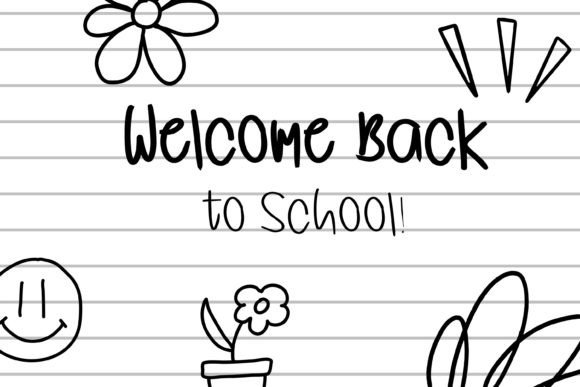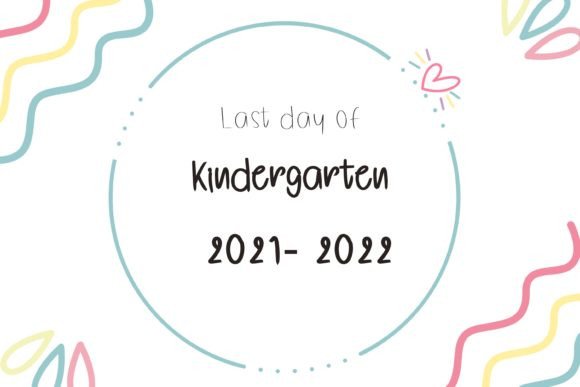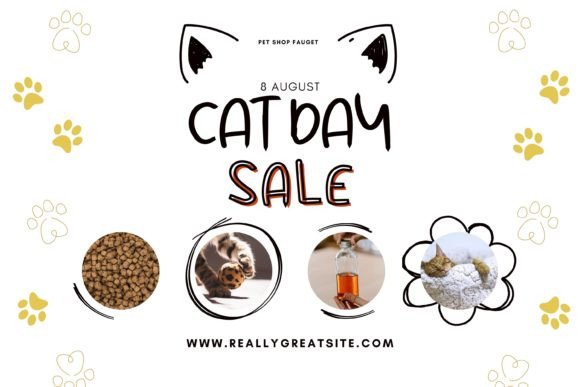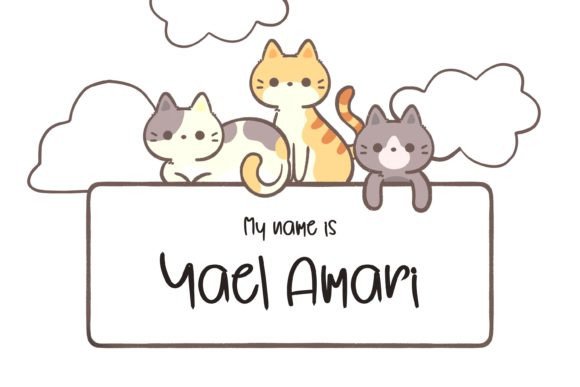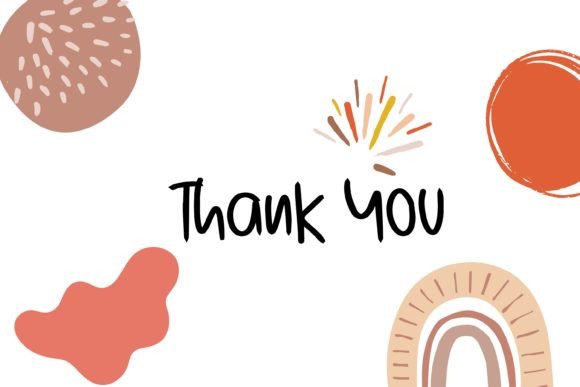
Introduction to Rawon Font
Do you remember the moment when you first saw a font that made you smile? For designers, finding the perfect font can be a game-changer. It’s that one element that can elevate a project from good to great. And that’s exactly what the Rawon Font does – it adds a touch of whimsy and playfulness to any creative project.
With its unique character shapes and high-quality design, the Rawon Font is a valuable resource for designers. Whether you’re working on a children’s book, packaging, or social media campaign, this font is sure to make your designs stand out. Plus, with a transparent background, it’s easy to integrate into any design. And the best part? It’s available for free download, making it a must-have for any design enthusiast.
Rawon Font
- High-quality font suitable for creative projects and designs with a unique, elegant style.
- Perfect for use in logos, branding materials, and other creative projects that require a touch of elegance and sophistication.
- Designed to be highly legible and easy to read, even at small font sizes, making it an ideal choice for various design applications.
Honest Review: Rawon Font
As a designer, I’ve had my fair share of experimenting with various fonts for creative projects. Recently, I stumbled upon the Rawon Font, which has left me impressed.
What works well is the font’s unique and quirky design, making it perfect for adding a touch of personality to any project. The high quality of the font is evident in its crisp lines and smooth curves, ensuring it looks great on both digital and print materials.
- ✨ Unique and quirky design
- ✨ High-quality font with crisp lines and smooth curves
However, I did encounter some limitations. The font doesn’t come in a wide range of weights, which might limit its versatility. Additionally, the font might not be suitable for projects requiring a more formal tone.
Overall, I’m impressed with the Rawon Font’s potential for adding a creative touch to projects. While it may have some limitations, its unique design and high quality make it a valuable design resource.
Rawon Font
The Rawon Font is a high-quality, free design resource ideal for creative projects. With its unique style, this font is perfect for adding a personal touch to your designs.
Tips for Getting the Most Out of Rawon Font
To get the most out of Rawon Font, experiment with different font sizes, colors, and styles. You can also combine it with other design elements to create a unique look.
The Rawon Font is perfect for creative projects, such as graphic design, typography, and digital art. Its high-quality design and transparent background make it an ideal choice for designers and artists.